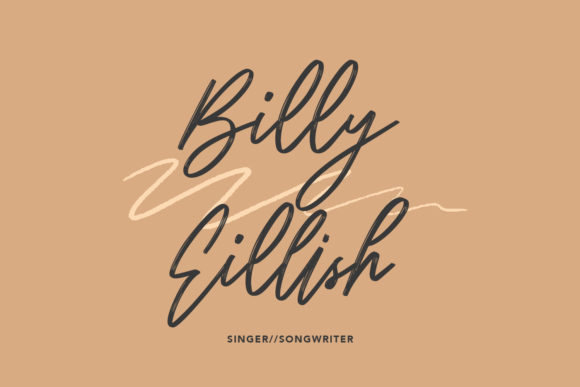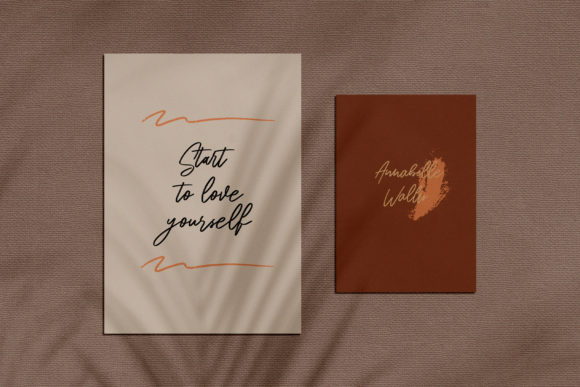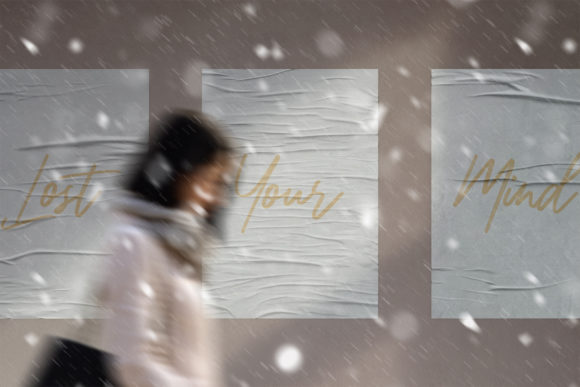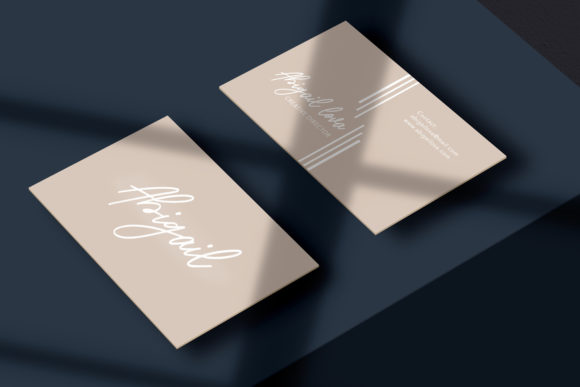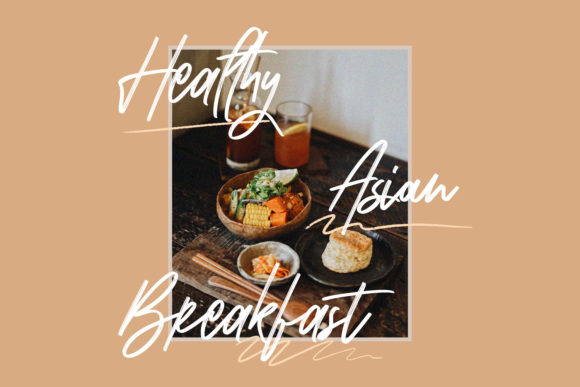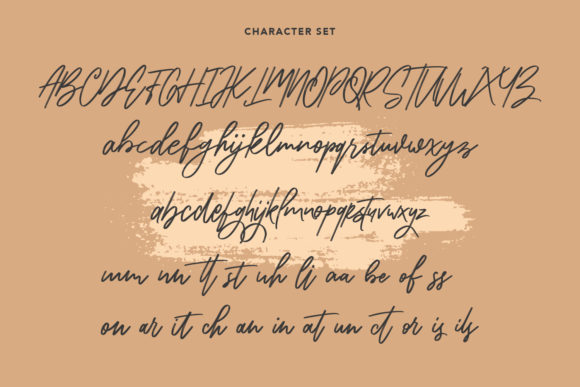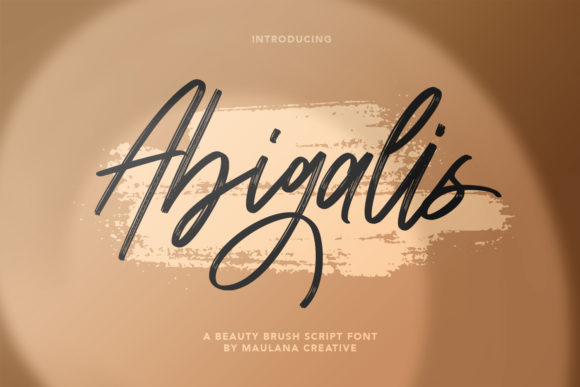
Introducing Abigalis Font: The Perfect Blend of Modernity and Authenticity
Are you a designer or crafter looking for a font that can add an adventurous and authentic feel to your next design project? Look no further than Abigalis Font, a modern script font made in a brush style that is sure to take your designs to the next level.
What is Abigalis Font?
Abigalis Font is a beautiful, hand-crafted font that is designed to give your designs a unique and personalized touch. With its modern script style and brush-like texture, Abigalis Font is perfect for creating eye-catching headlines, titles, and quotes that are sure to grab attention.
Key Features of Abigalis Font
• Modern Script Style: Abigalis Font features a modern script style that is both elegant and sophisticated.
• Brush-Like Texture: The font’s brush-like texture gives it a unique, hand-crafted feel that is perfect for adding an authentic touch to your designs.
• Highly Readable: Despite its decorative style, Abigalis Font is highly readable, making it perfect for use in a variety of design projects.
• Multilingual Support: Abigalis Font supports multiple languages, making it a great choice for designers who work with international clients.
Uses for Abigalis Font
Abigalis Font is a versatile font that can be used in a variety of design projects, including:
• Branding and Packaging: Use Abigalis Font to create eye-catching logos, labels, and packaging that will help your brand stand out.
• Signage and Displays: Abigalis Font is perfect for creating eye-catching signage and displays that will grab attention and draw in customers.
• Stationery and Invitations: Add a touch of elegance and sophistication to your stationery and invitations with Abigalis Font.
• Digital Design: Abigalis Font can be used in digital design projects, such as website headers, social media graphics, and email marketing campaigns.
Tips for Using Abigalis Font
Here are a few tips for getting the most out of Abigalis Font:
• Use it as a Headline Font: Abigalis Font is perfect for use as a headline font, where its decorative style can really make an impact.
• Pair it with a Simple Font: For body text, pair Abigalis Font with a simple, easy-to-read font to create a striking contrast.
• Experiment with Colors: Abigalis Font looks great in a variety of colors, so don’t be afraid to experiment and find the perfect shade for your design.
Abigalis Font is a beautiful, modern script font that is perfect for adding an adventurous and authentic feel to your design projects. With its brush-like texture and highly readable style, Abigalis Font is a versatile font that can be used in a variety of design applications. Whether you’re a designer, crafter, or DIY enthusiast, Abigalis Font is a great choice for anyone looking to add a touch of elegance and sophistication to their designs.